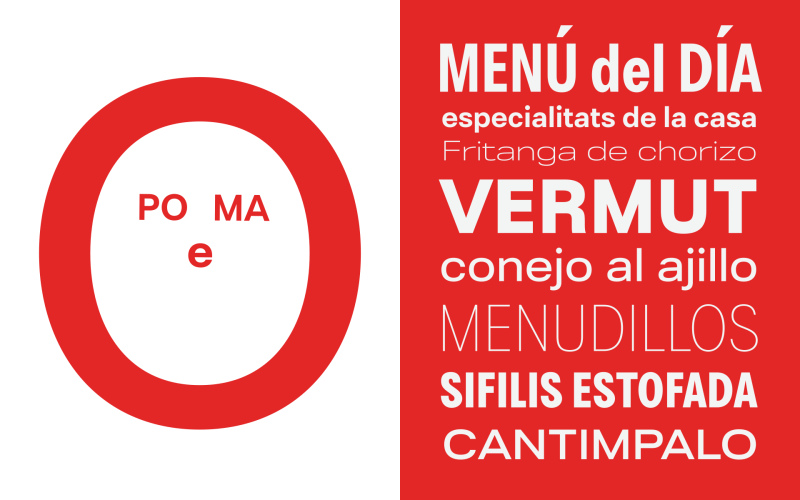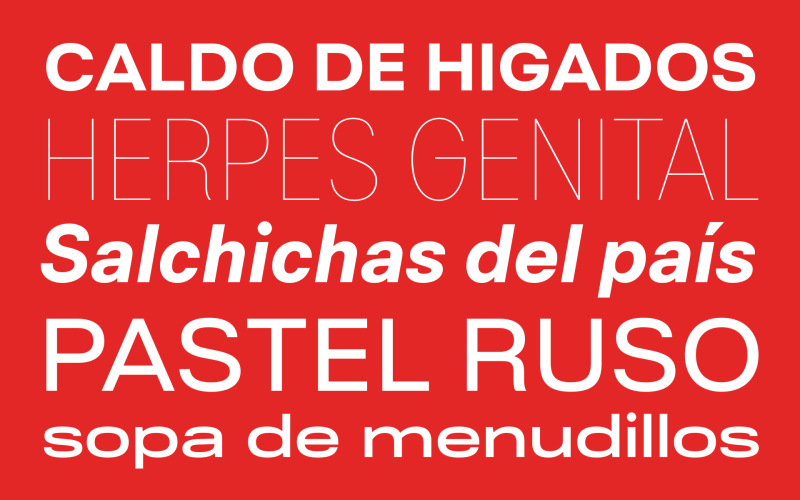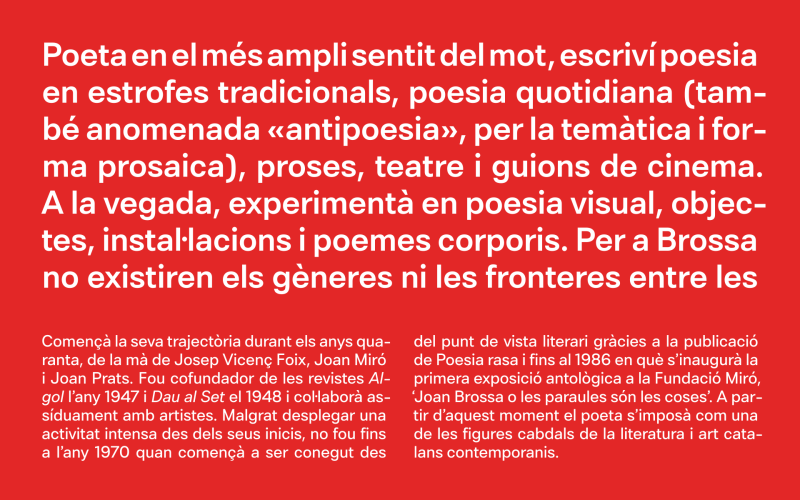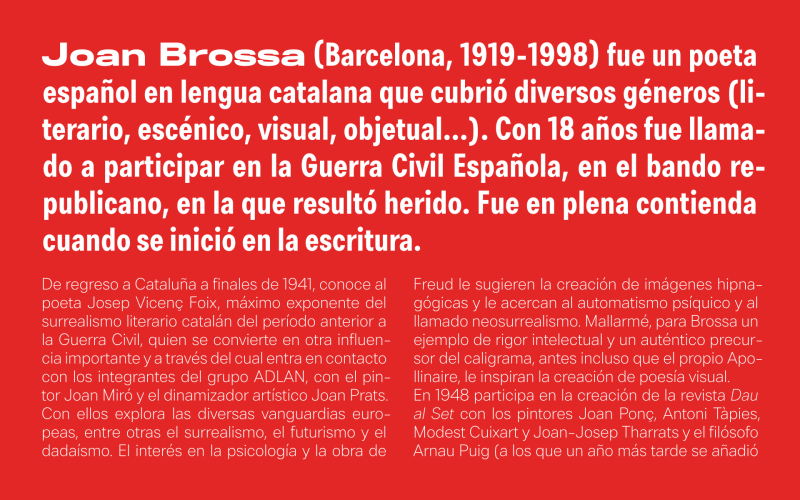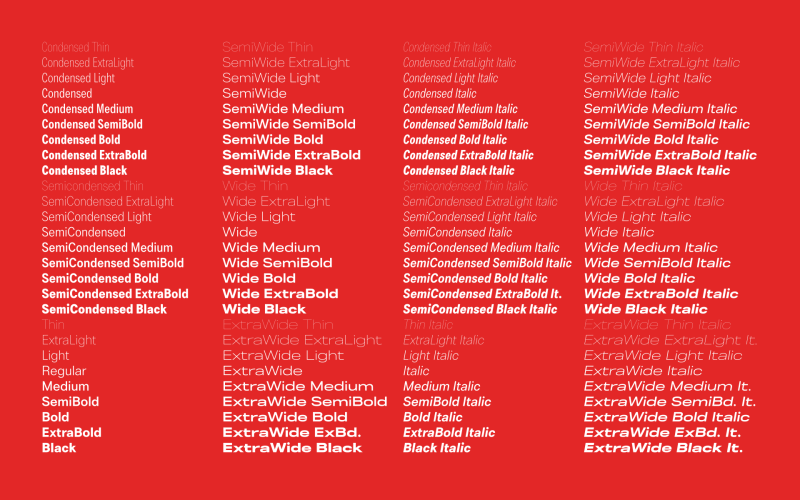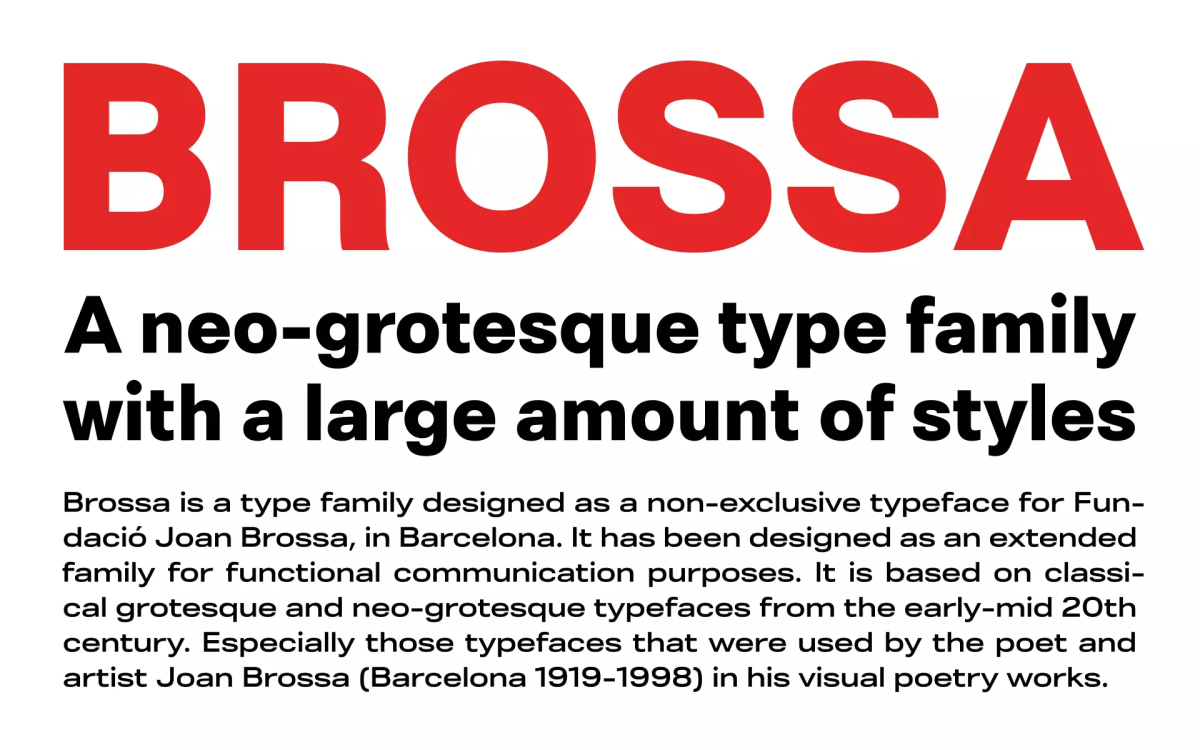
Brossa Font Family
JOAN BROSSA (19 January 1919 – 30 December 1998) was a Catalan poet, playwright, graphic designer and visual artist. He wrote only in the Catalan language. He was one of the founders of both the group and the publication known as ‘Dau al Set’ and one of the leading early proponents of visual poetry in Catalan literature.
Although he was in the vanguard of the post-war poets, He also wrote hundreds of formally perfect sonnets, sapphic odes and sestinas as well as thousands of free and direct poems. His creative work embraced every aspect of the arts: cinema, theatre (more than 360 pieces), music, cabaret, the para-theatrical arts, magic and the circus. For him, the expression had priority over content, and he managed to give his poetry the appearance of plays on words. His lyrical work is connected with the theatre while the totality of his literature (more than 80 books, all written in the Catalan language) is impregnated with the theatrical dimension as he always employed a broad and interdisciplinary vision of culture, the arts in general and the performance arts in particular. This vision was expressed in his literary and visual works which often appeared as satirical, cutting, ironic and critical, or on other occasions, irreverent yet playful. In the latter years of his creative life, he received a number of awards such as the National Prize for the Visual Arts (1992), the National Theatre Prize (1998) and the UNESCO Picasso Medal. He has been posthumously awarded doctorate honoris causa from the Universitat Autònoma de Barcelona (1999). He was a member and then Honorary Member of the Associació d’Escriptors en Llengua Catalana (Association of Catalan Language Writers). His visual poetry, obviously placed beyond all linguistic borders, is recognized as a reference the world over.